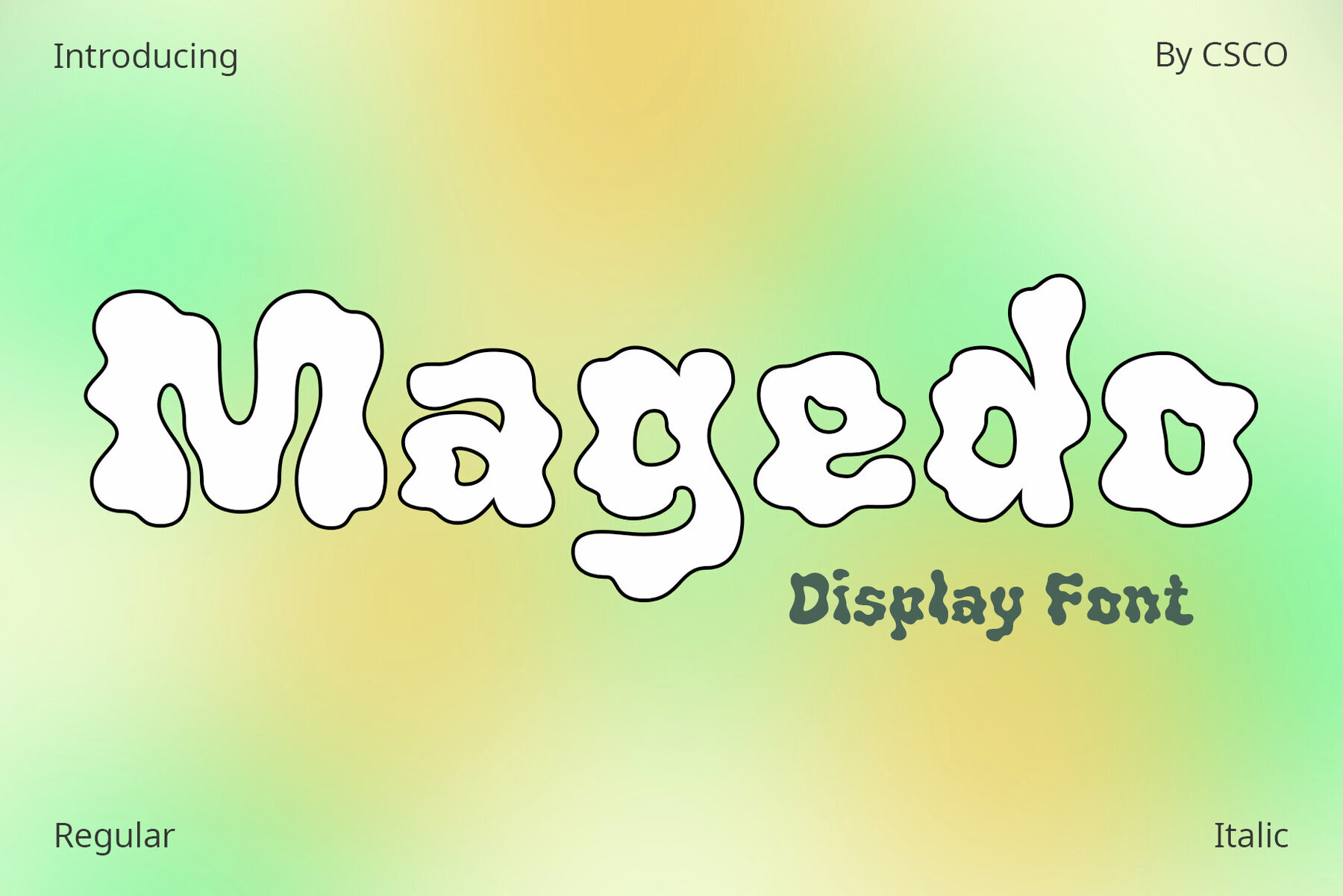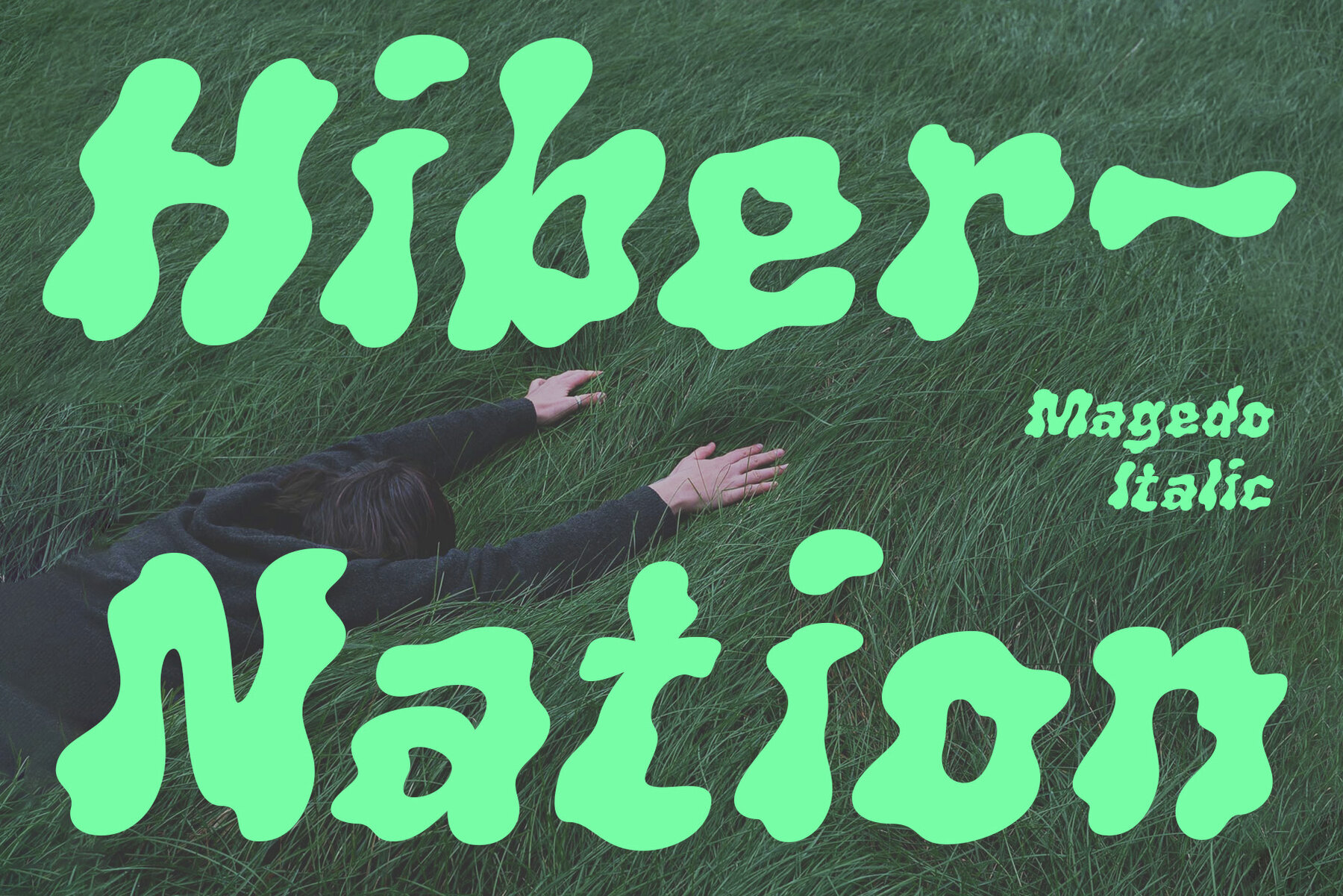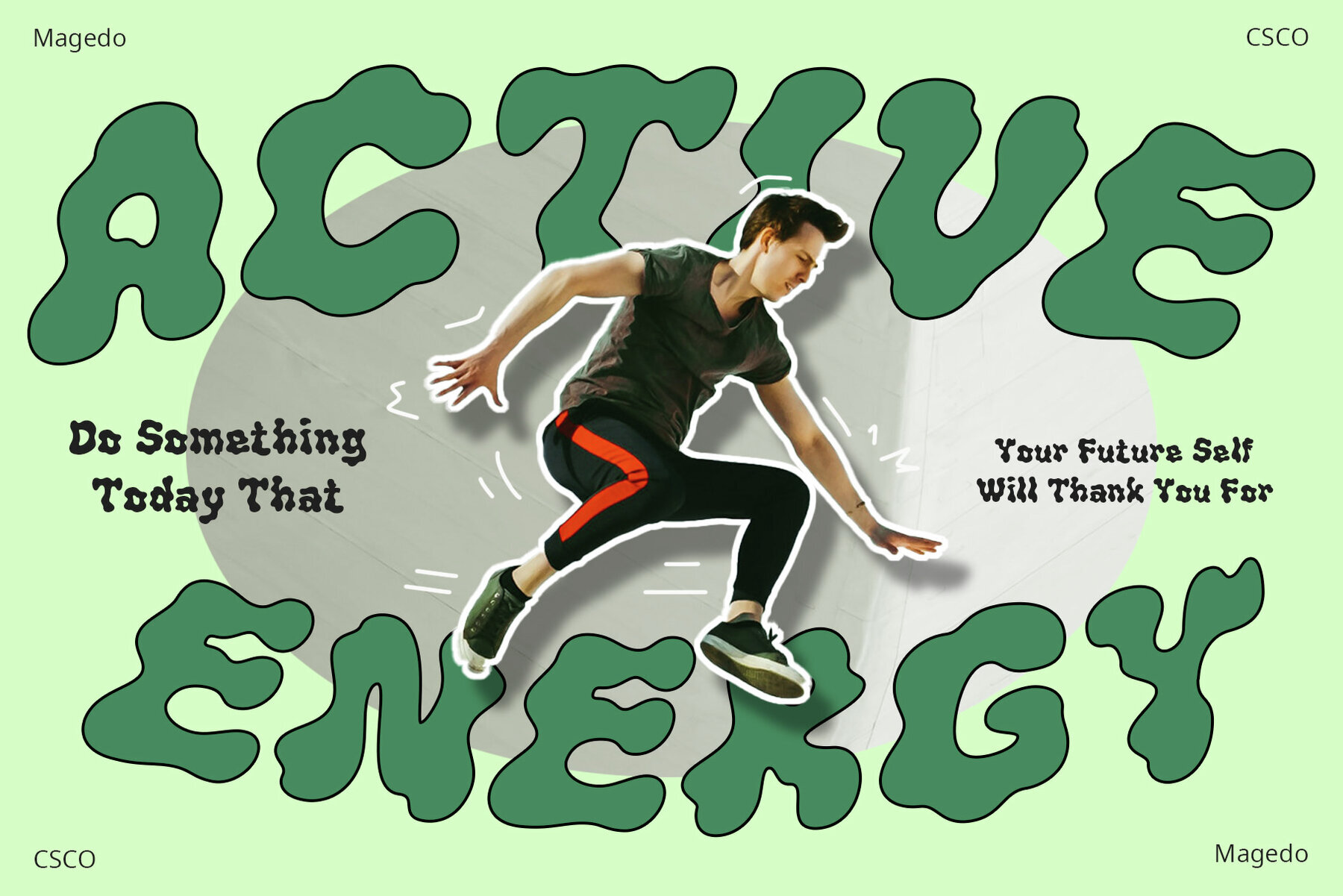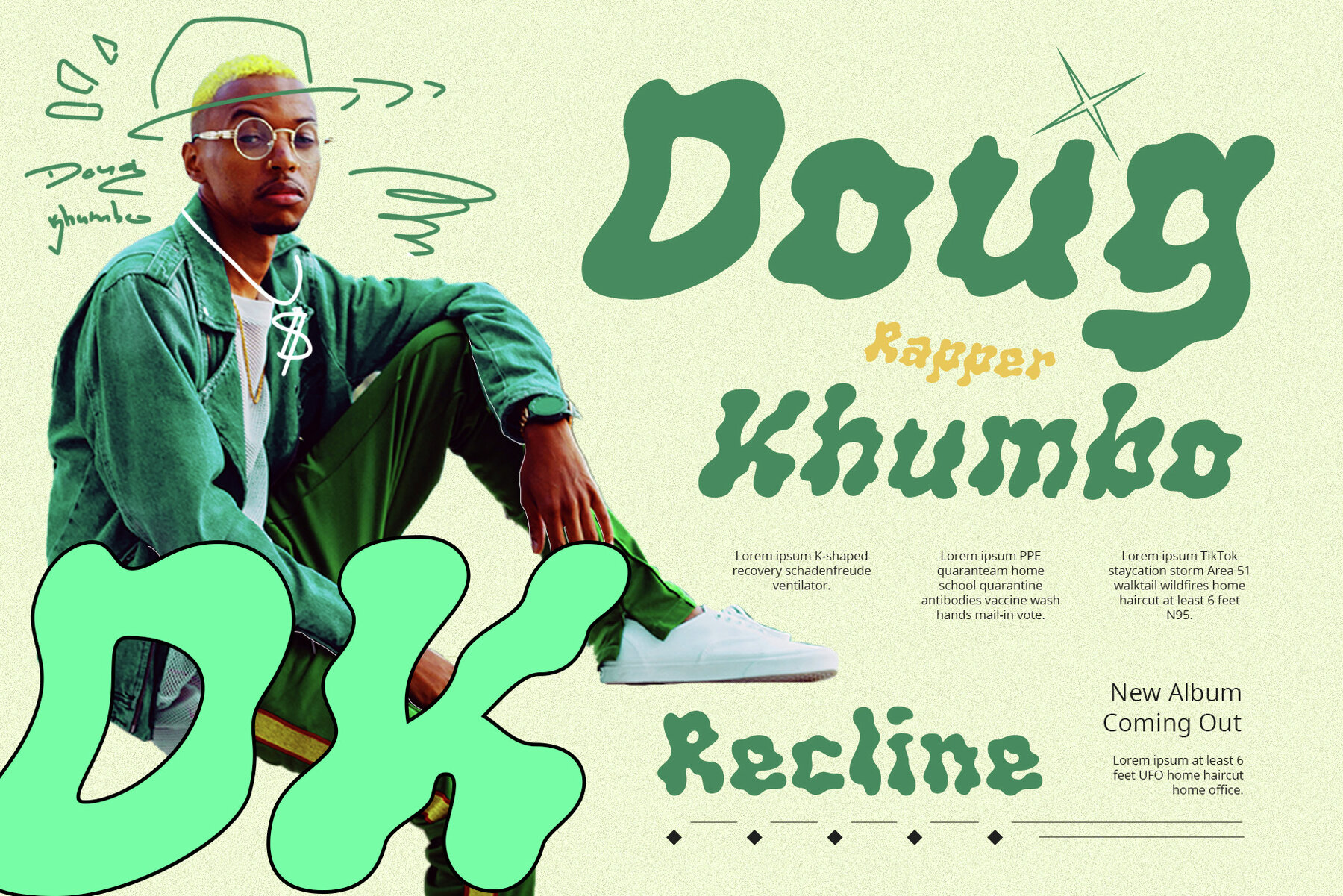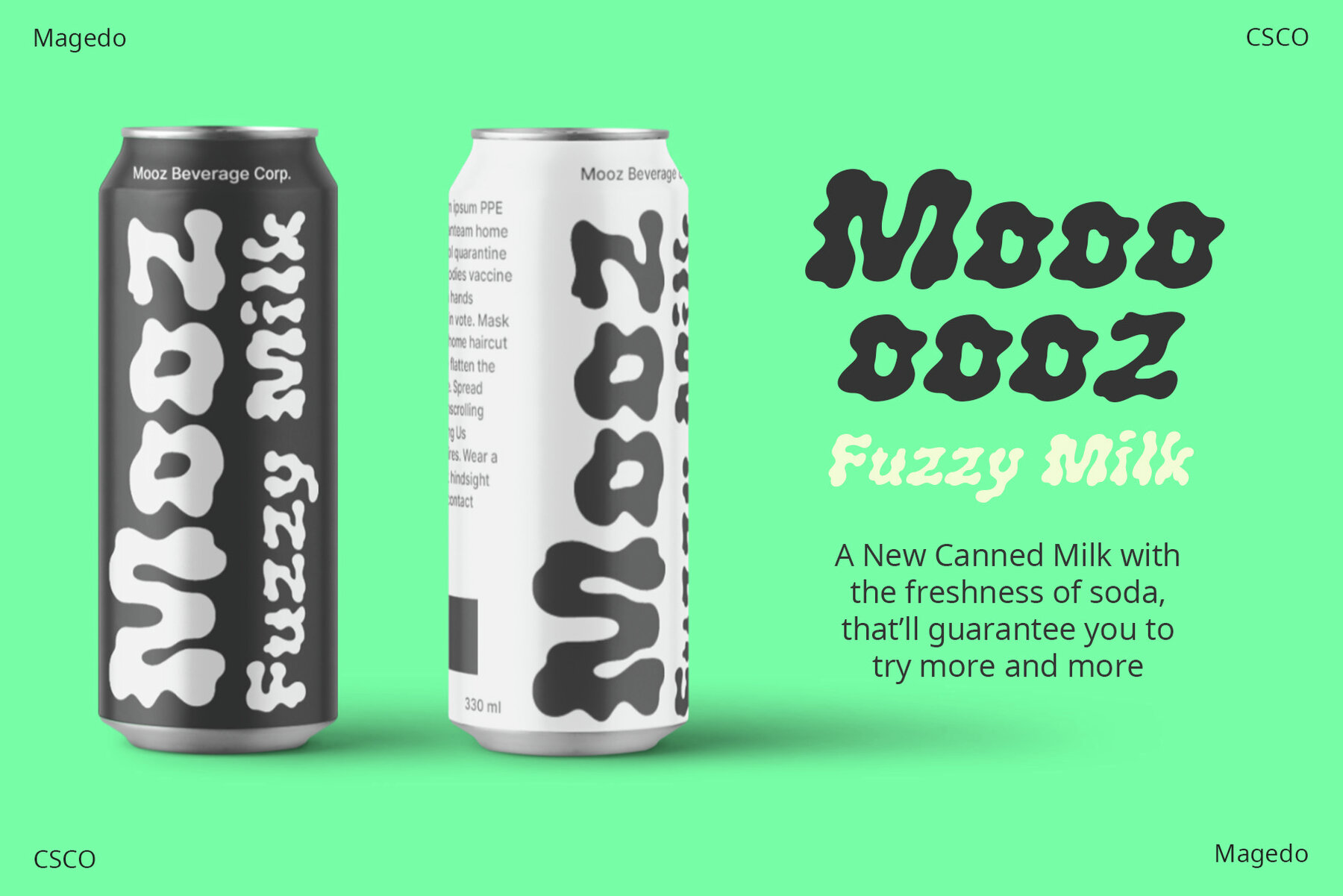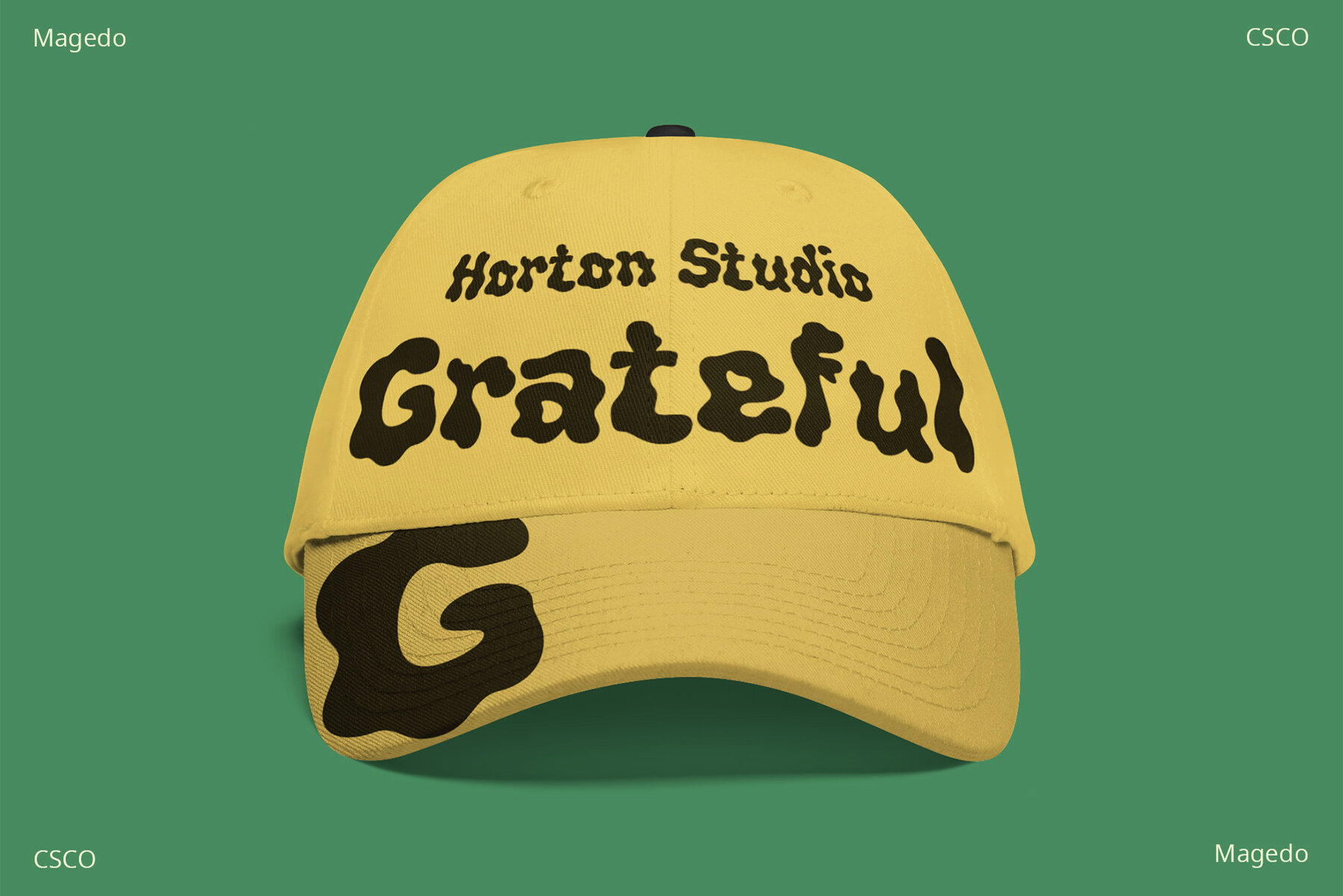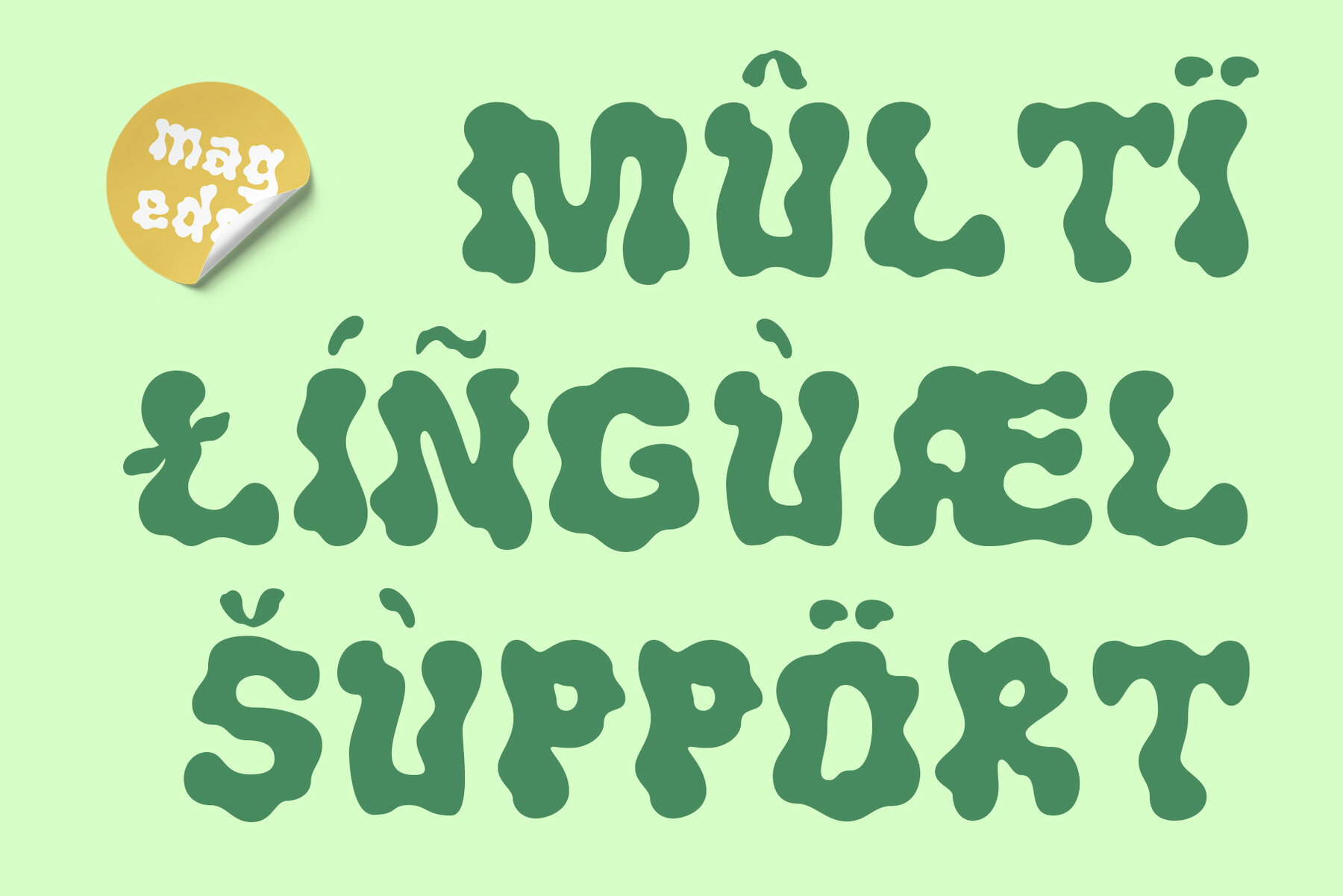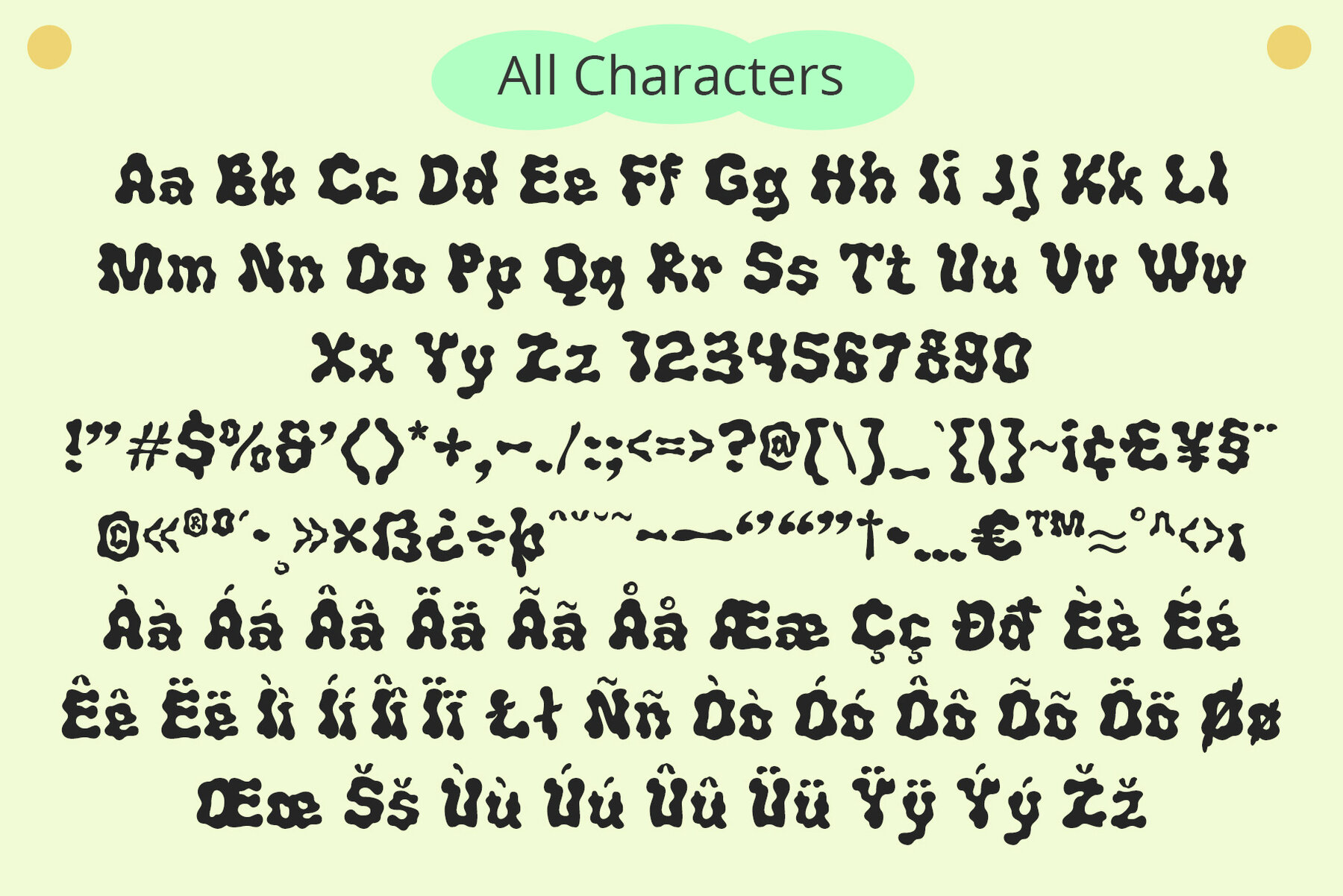
Magedo Font
The Magedo font draws inspiration from the swirling, vibrant world of psychedelic music. It embodies a visual trip reminiscent of 1960s rock. This font captures the essence of an era defined by its bold, experimental spirit. Every character in Magedo bursts with creativity, inviting designers to explore uncharted territories. Magedo’s letters twist and turn, mimicking the fluidity of sound and music. Its design features exaggerated forms and undulating lines. The use of bright, contrasting colors enhances its trippy aesthetic, making it perfect for eye-catching display designs. Ideal for posters, album covers, and merchandise, Magedo speaks to music enthusiasts and artists alike. Its versatility extends to digital platforms, where it adds a touch of whimsy to websites and social media graphics. Despite its intricate design, Magedo maintains readability, ensuring your message stands out. Magedo is more than just a font; it’s an experience. It engages viewers, drawing them into a world where art and music collide. Whether used for commercial or personal projects, Magedo guarantees a unique, memorable impact. Embrace the psychedelic journey with Magedo and let your designs sing. You can use this typeface without needing any specialized software. If you have any inquiries or need assistance, please feel free to contact us. We appreciate your support in enhancing your creative projects!Magedo: Psychedelic Font Inspired by 1960s Rock
Design Features
Versatility in Use
Engaging the Audience